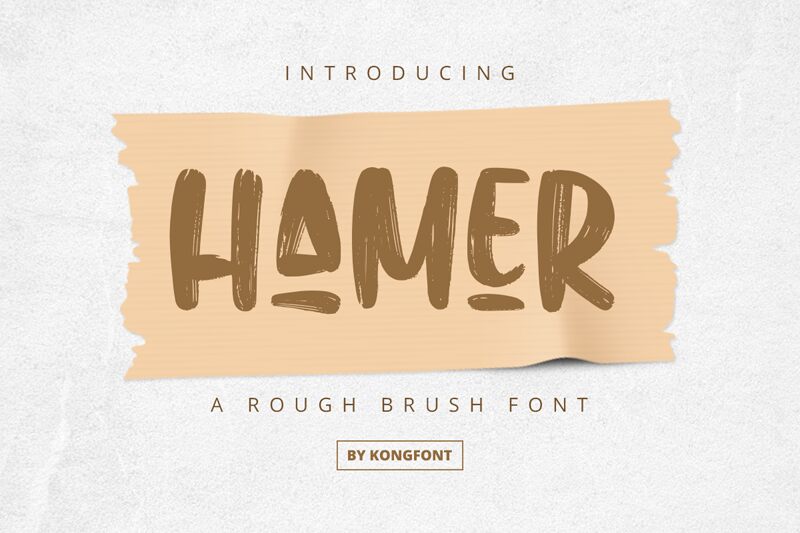
Hamer
Hamer, the latest brush typeface designed by Kong Font, is a bold and condensed font perfect for projects that require a strong statement. Its thick strokes and dynamic curves make it ideal for headlines, posters, and logos that demand attention. This font's expressive nature will give your designs a unique edge that will leave a lasting impression on your audience. Whether you're creating packaging for an edgy fashion brand or designing graphics for a heavy metal band, Hamer's condensed brush style is guaranteed to make your message stand out.